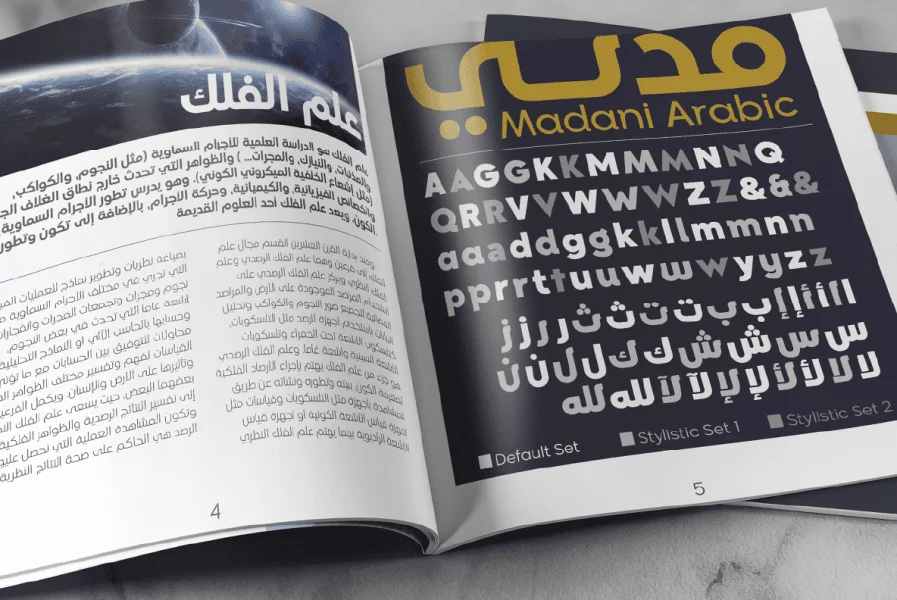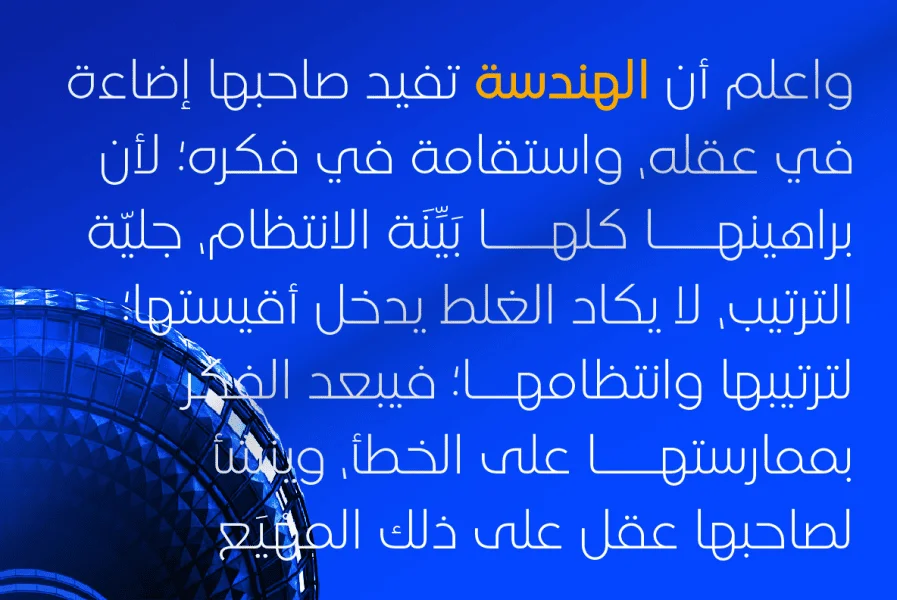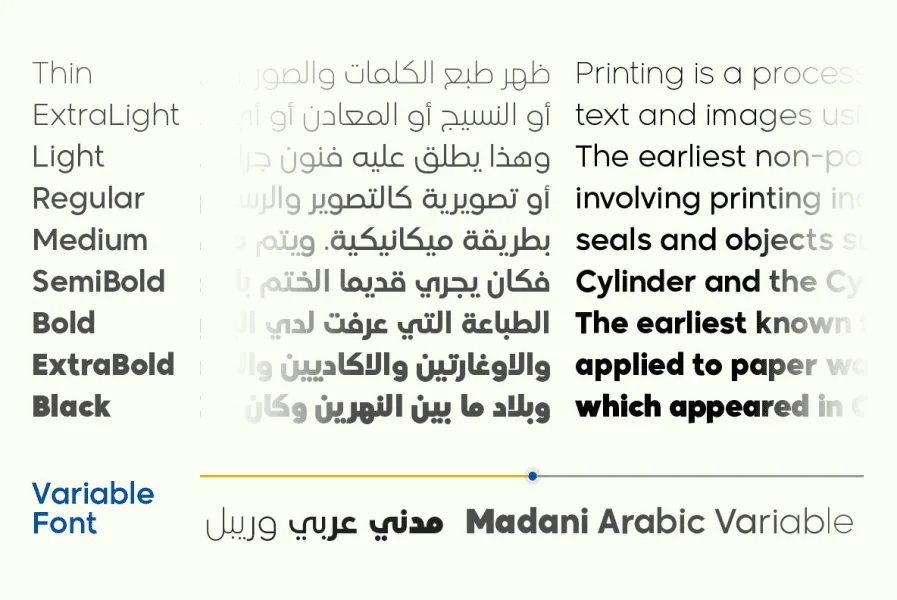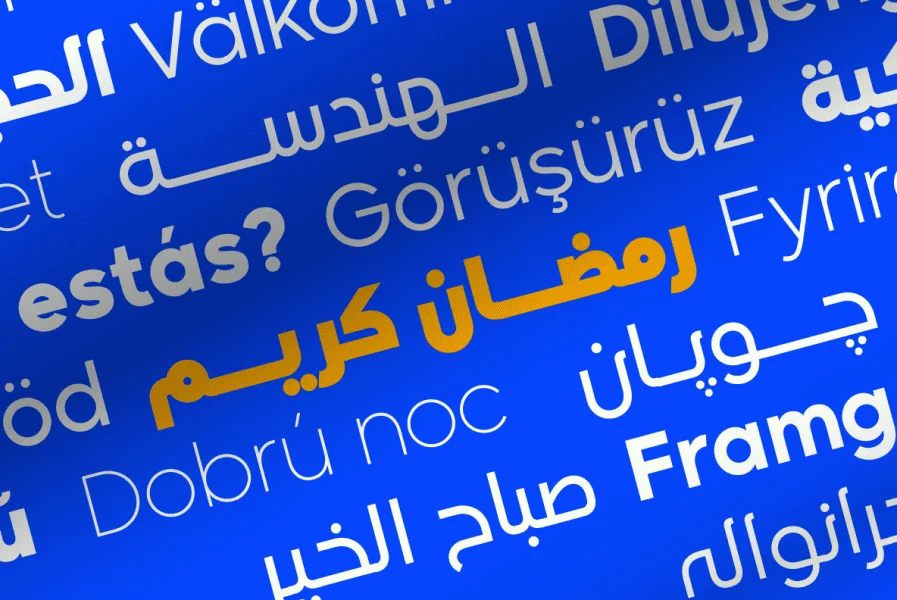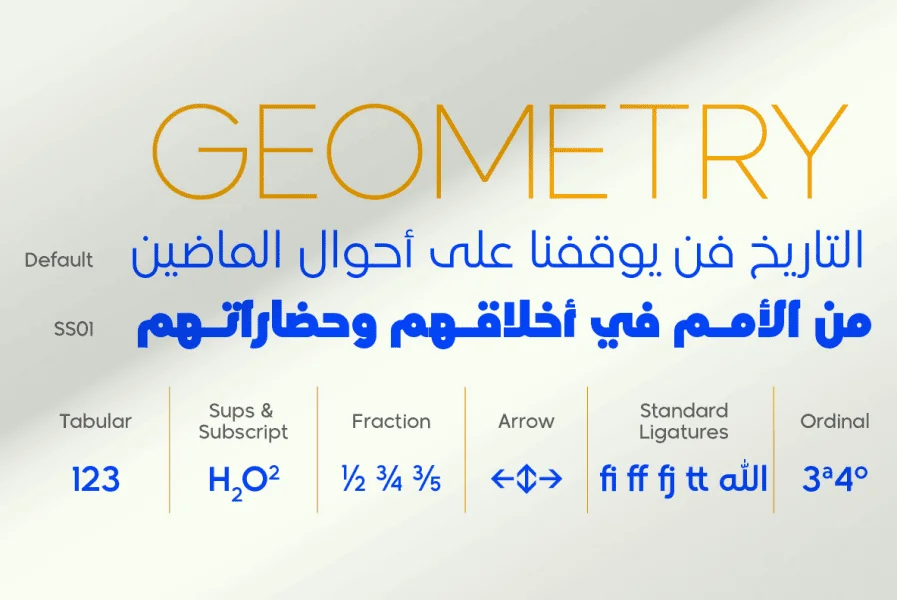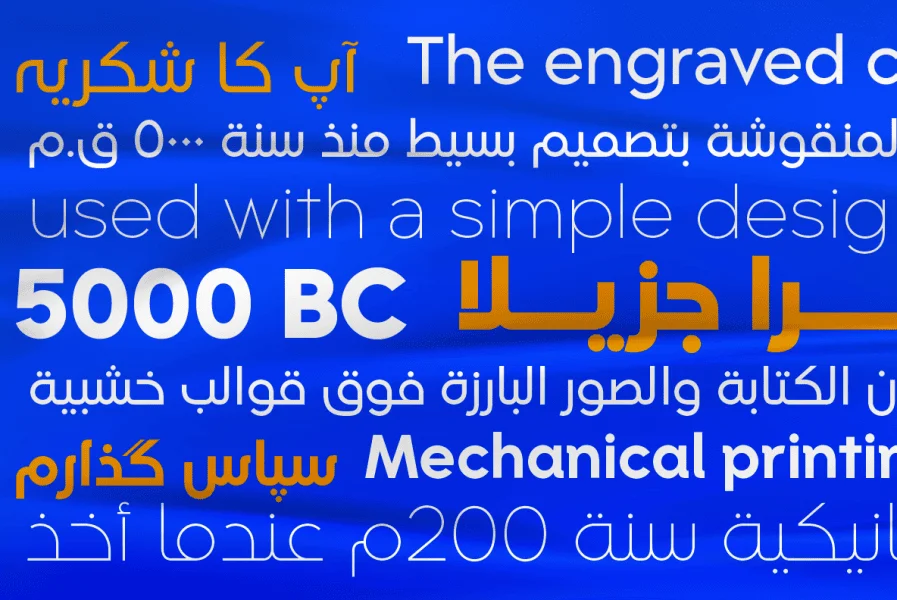
Madani Arabic Font is a true testament to the artistry of Arabic calligraphy, rooted in the rich tradition of the Arabic Kufi style. It marries the classic elegance of this script with a contemporary geometric approach, creating a harmonious fusion with Latin typography. This harmonization allows it to seamlessly blend within a diverse typographic landscape.
Comprising a total of 9 meticulously crafted weights, Madani Font spans from the delicate Thin to the Black, ensuring that designers have a comprehensive spectrum to choose from. This versatility makes it an ideal choice for a myriad of design projects, from editorial layouts and corporate branding to digital interfaces. Madani Arabic Font stands as a symbol of the timeless beauty of Arabic calligraphy, now adapted to modern design, offering clarity and sophistication in each stroke.